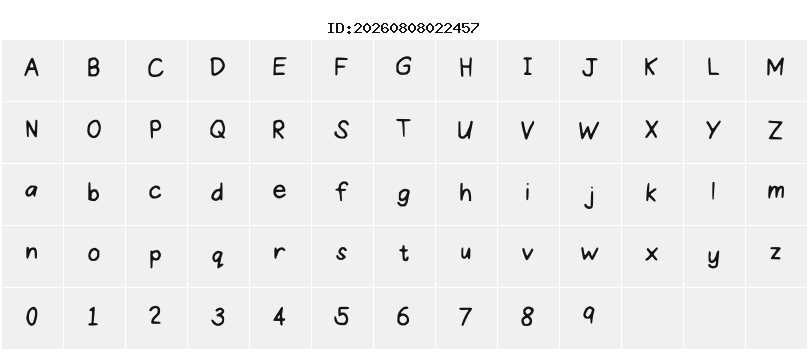
About ProperPrincess.ttf
ProperPrincess.ttf is a modern, elegant sans-serif font designed for ultimate readability and visual harmony. Perfect for branding, headlines, web design, and print materials.